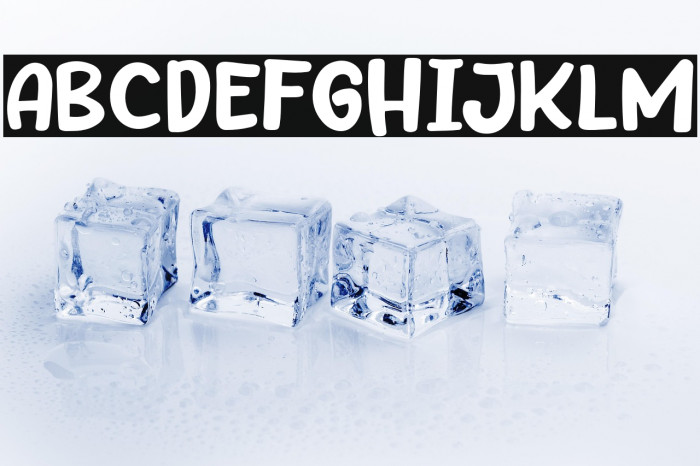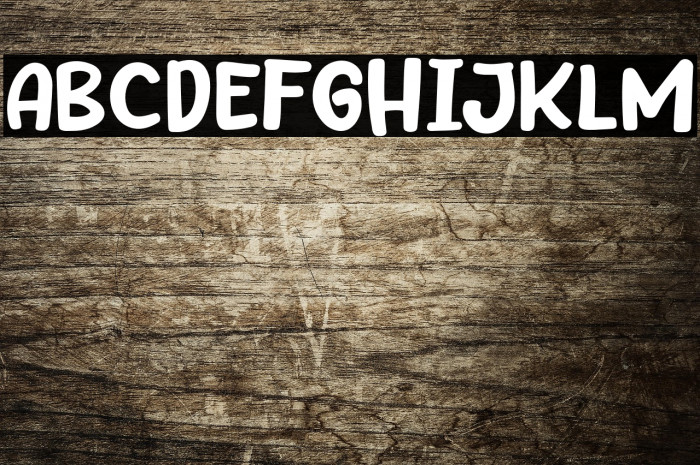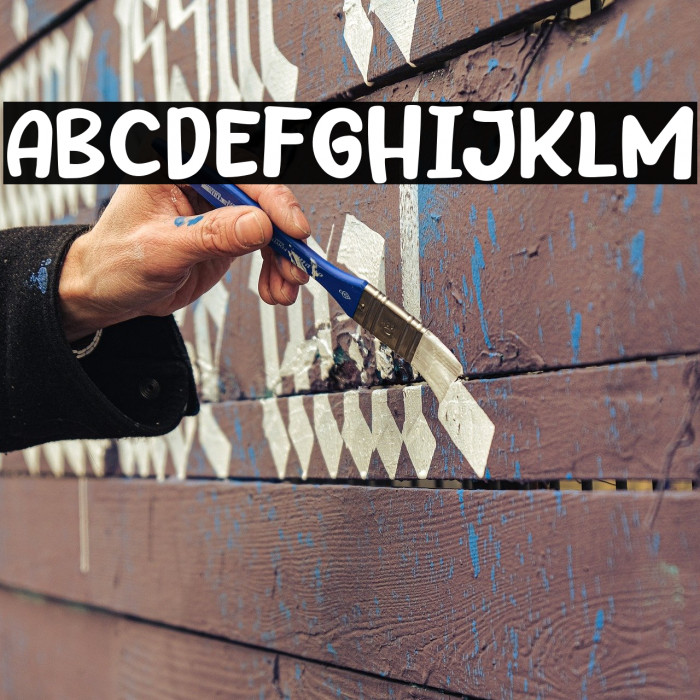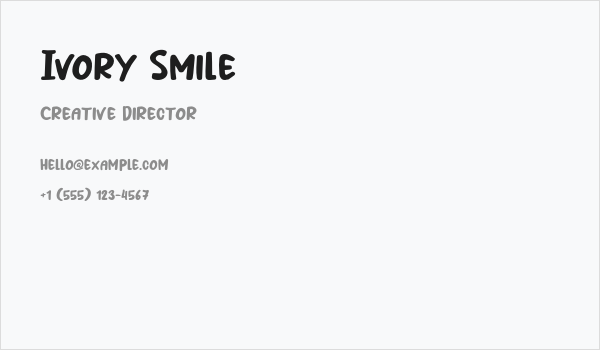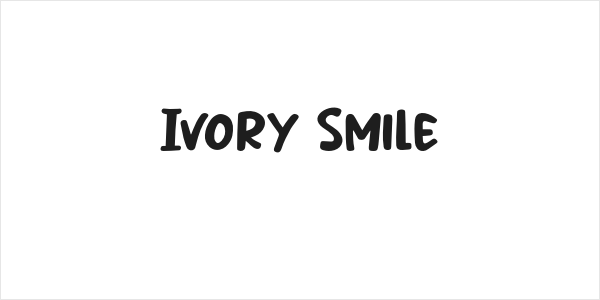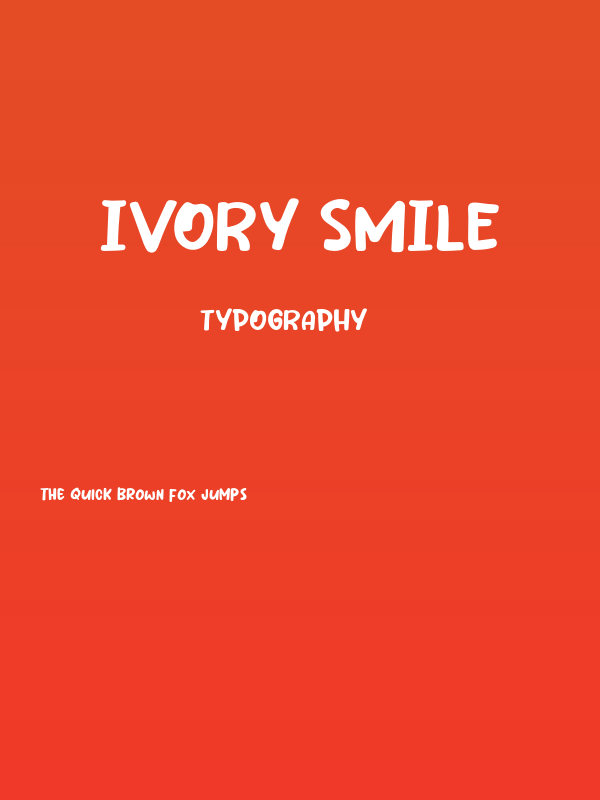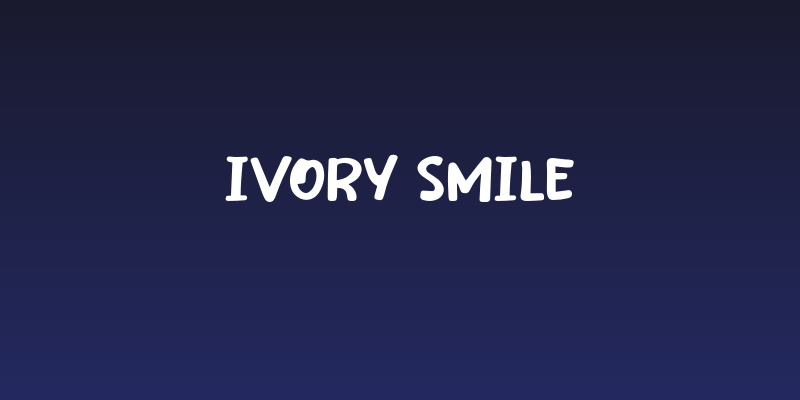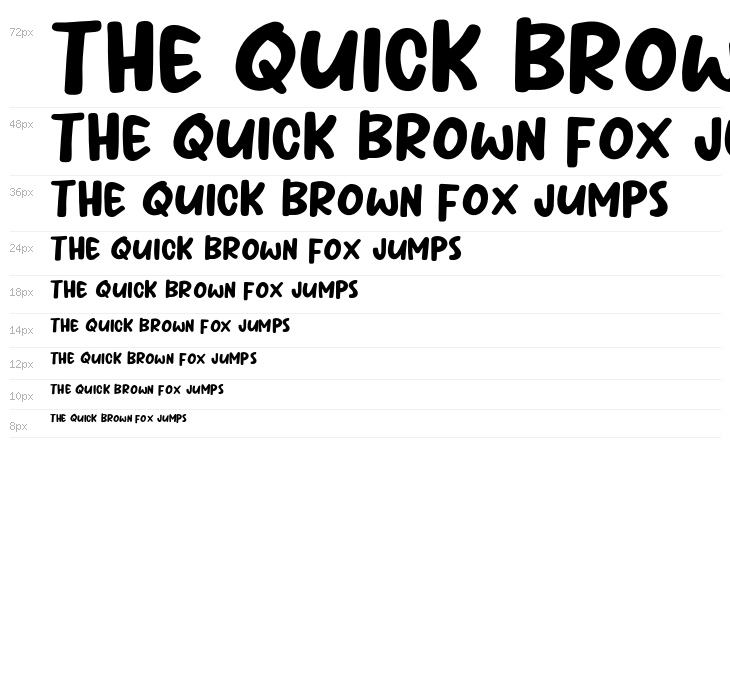
Ivory Smile Font
Ivory Smile Description
This playful and bold font features a handwritten style with a friendly and approachable appearance. The characters are rounded and slightly irregular, giving them a casual and informal feel. The strokes are thick and consistent, providing a strong visual impact. The font includes both uppercase and lowercase letters, numbers, and a variety of special characters, making it versatile for different uses. Its energetic and lively design makes it suitable for projects that aim to convey fun and creativity.
| Use Case | Logos, Posters, Greeting Cards |
| Proposed Projects | Ideal for children's books, playful branding, greeting cards, and creative posters. |